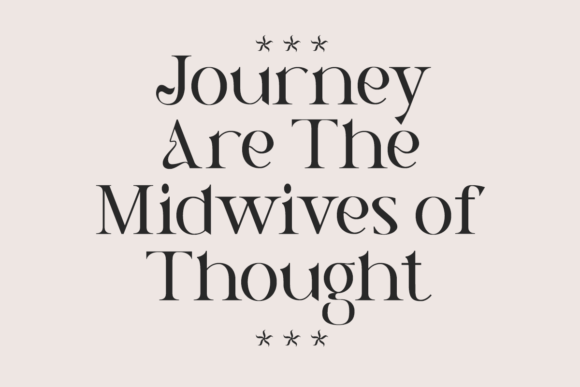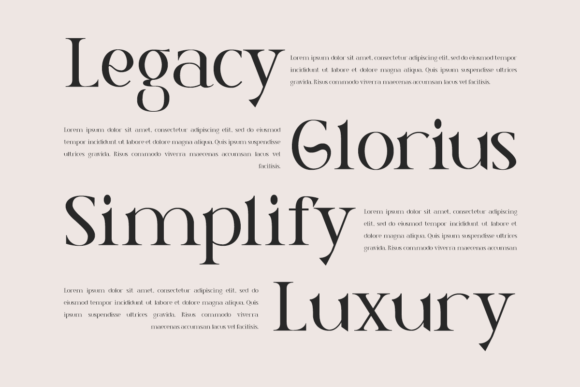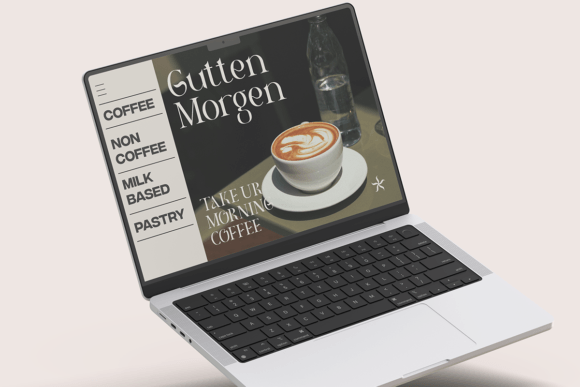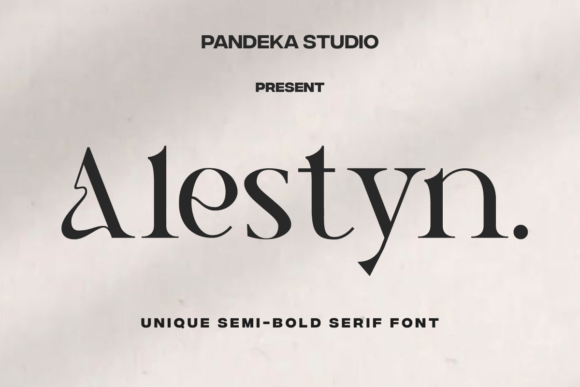
Introduction to Alestyn Font
Introducing Alestyn, a sophisticated serif typeface that effortlessly combines elegance with a contemporary flair.
With its graceful lines and modern aesthetic Alestyn adds a touch of femininity and class to any design project, making it the ideal choice for those seeking both style and sophistication.